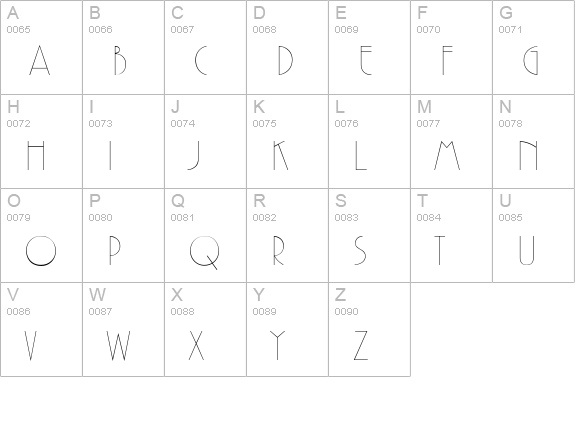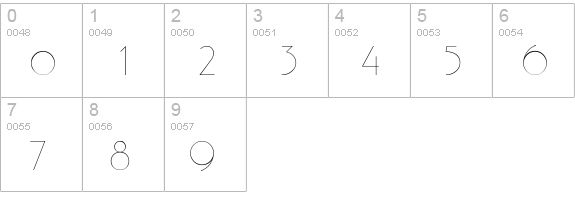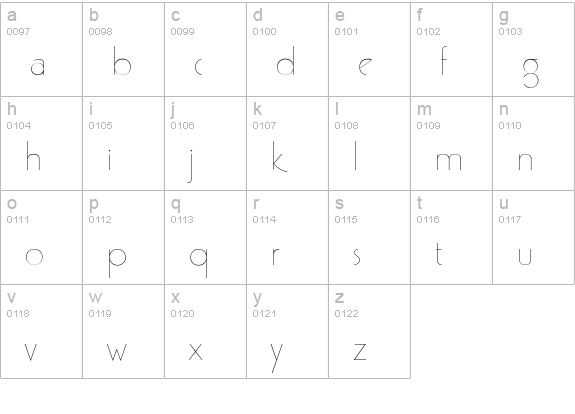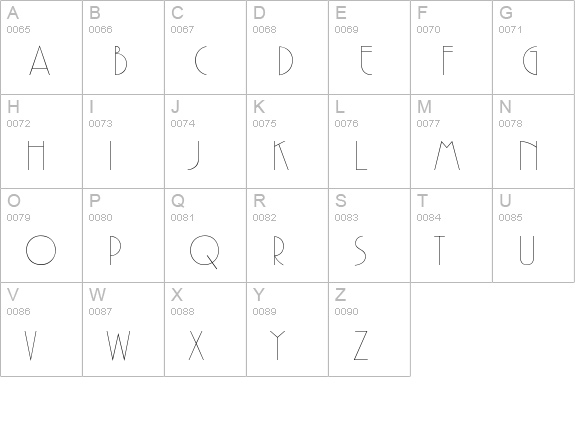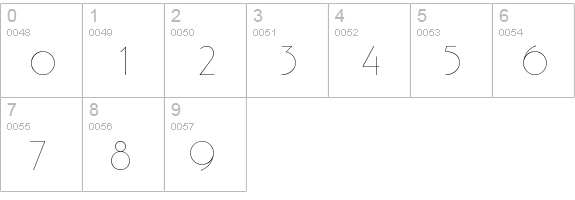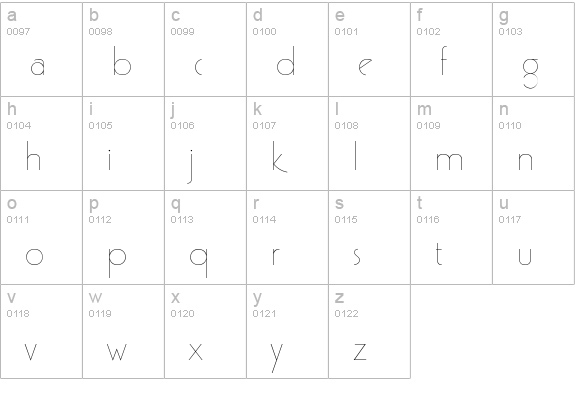
P700-Deco-Regular Font Details
P700-Deco-Regular is the standard, neutral variant in the P700 typeface family \xE2\x80\x94 well suited to general body text, paragraphs, and standard typographic work.
P700-Deco-Regular font is a stunning display typeface that exudes a perfect blend of elegance and modernity. Its sleek and sophisticated design captures the essence of Art Deco style, making it an ideal choice for projects that require a touch of sophistication and creativity. The geometric shapes and sharp lines of this font give it a unique and eye-catching appearance, perfect for making a bold statement in any design. What makes P700-Deco-Regular font even more appealing is that it is available for free download at FontsMarket.com. This means that you can easily access this beautiful font and use it in your projects without any cost. Whether you are working on branding, packaging, posters, or any other design project, P700-Deco-Regular font is sure to elevate your work and leave a lasting impression on your audience. So don't miss out on this amazing opportunity to enhance your designs with this exquisite font - download it for free today!